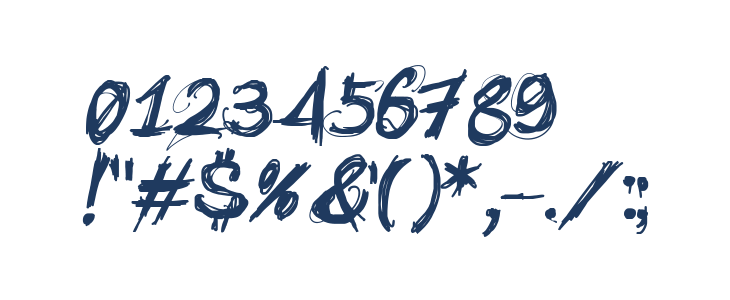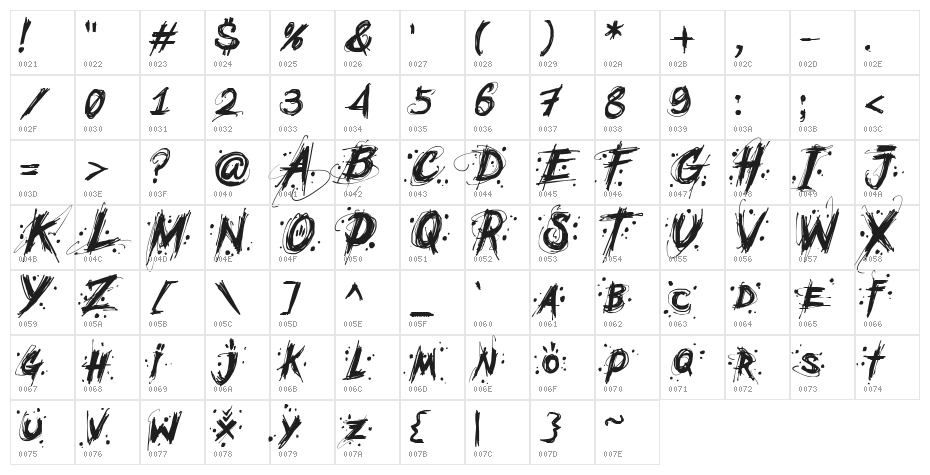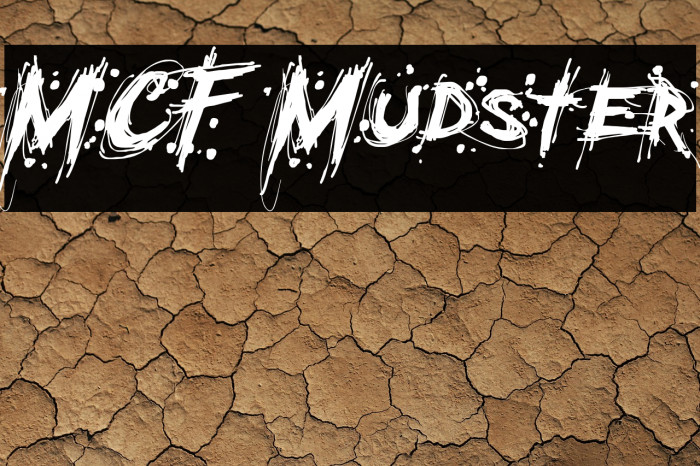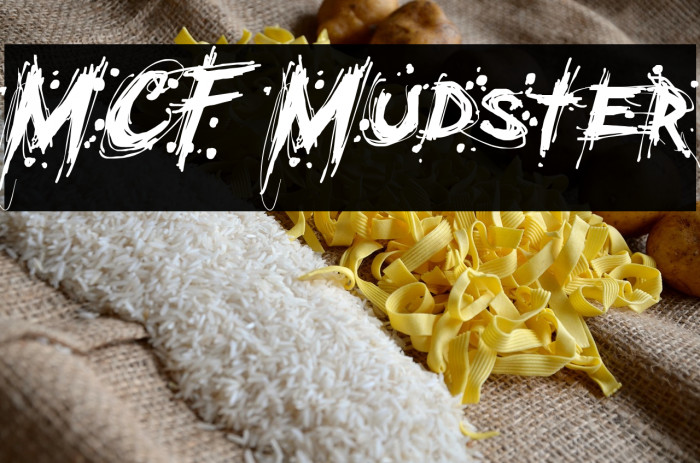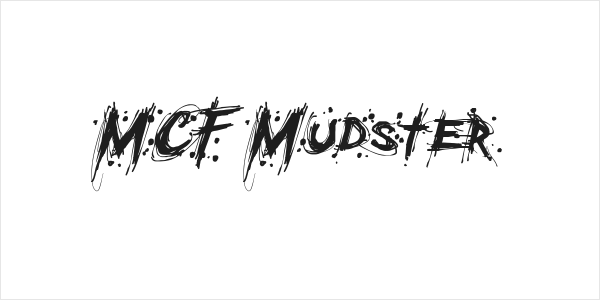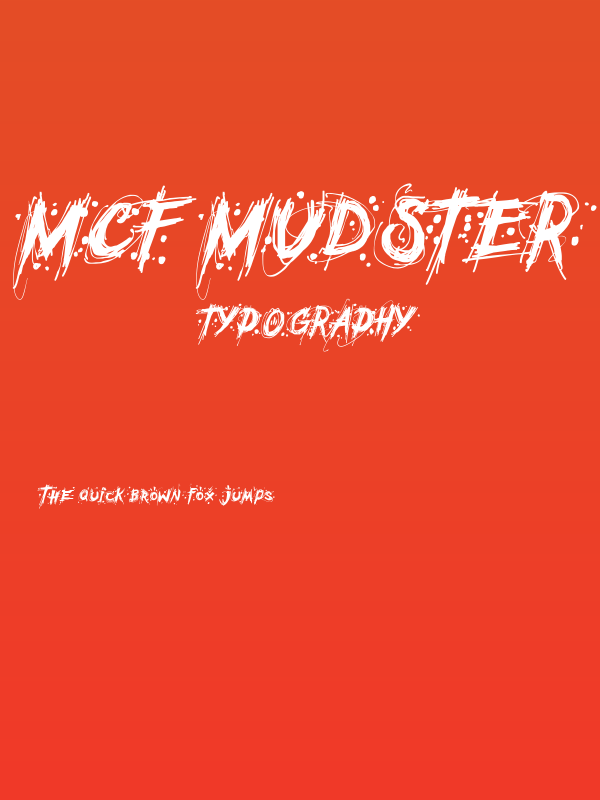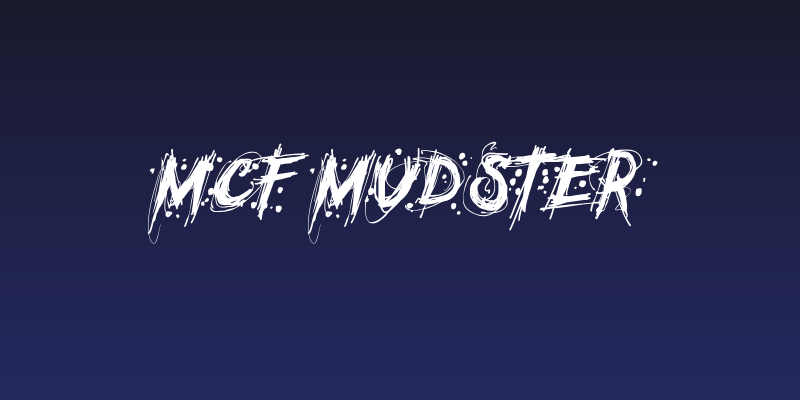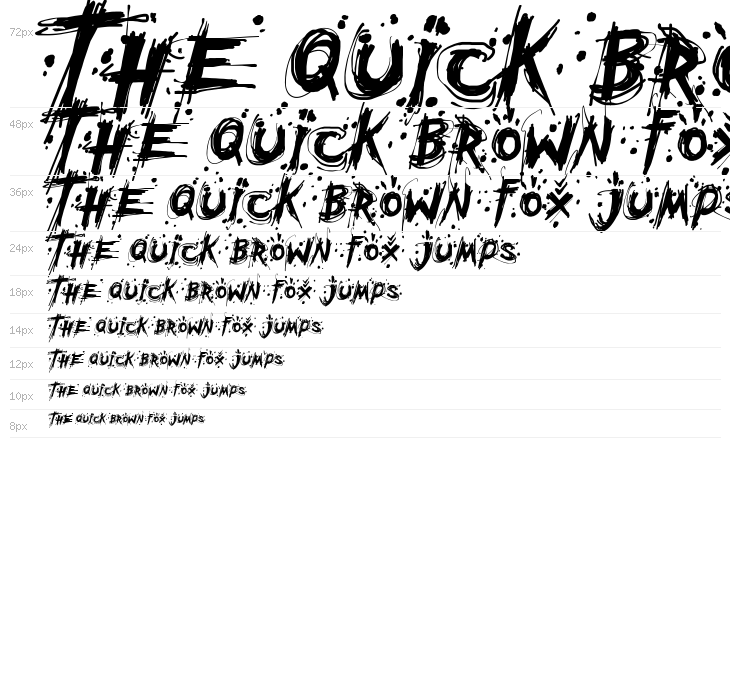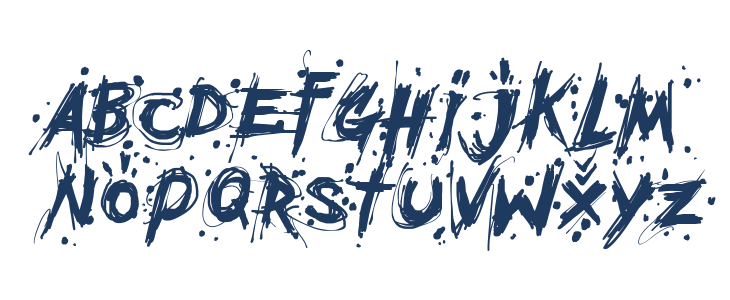
MCF Mudster Font
MCF Mudster Description
This font exudes a chaotic and energetic style, characterized by its bold, brush-like strokes and splattered ink effects. The letters are irregular and dynamic, giving a sense of movement and intensity. The uppercase and lowercase letters maintain a consistent wild aesthetic, with exaggerated curves and sharp angles. Numbers and special characters follow the same expressive style, making them stand out with a rebellious flair. This font is perfect for projects that require a strong, impactful visual presence.
MCF-MUDSTER UPPERCASE
MCF-MUDSTER LOWERCASE
MCF-MUDSTER OTHER CHARS
| Overall Style | Modern, Urban, Energetic |
| Use Case | Headlines, Posters, Artistic Designs |
| Proposed Projects | Ideal for music album covers, graffiti art, edgy posters, and urban-themed designs. |